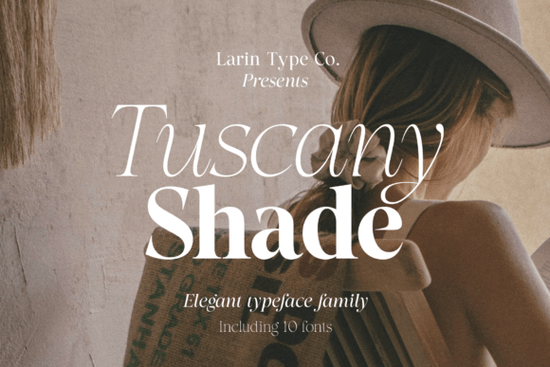
If you're on the lookout for a versatile and stylish font that can add a touch of elegance to your projects, Tuscany Shade Font is definitely worth considering. This serif font family offers a range of weights and styles, making it perfect for a variety of creative uses.
Why Choose Tuscany Shade Font?
Tuscany Shade is an elegant and contrast serif font that brings a modern and sophisticated feel to any design. It includes both regular and true Italic styles, each available in five different weights from extra light to bold. This versatility makes it an excellent choice for designers, crafters, and small businesses looking to create a polished and professional look.
Perfect for Fashion Projects
One of the standout features of Tuscany Shade is its suitability for fashion-related projects. Whether you're designing a logo, creating banners, or working on advertising materials, this font's clean lines and high contrast make it easy to read and visually appealing. Its classic yet modern aesthetic can help your designs stand out in a crowded market.
Versatile and Multi-Purpose
Beyond fashion, Tuscany Shade is a multi-purpose font that can be used in a wide range of applications. From packaging and book covers to magazines, headings, and descriptions, this font is flexible enough to fit into various design contexts. Its readability and stylish appearance make it a go-to choice for many creative professionals.
How to Use Tuscany Shade Font Effectively
To get the most out of Tuscany Shade, consider the following tips:
- Combine Weights and Styles: Experiment with different weights and styles (regular and Italic) to add depth and hierarchy to your designs.
- Use for Headings and Titles: The high contrast and elegant design of Tuscany Shade make it ideal for headings and titles, where you want to grab attention and set a professional tone.
- Pair with Complementary Fonts: For a more dynamic look, pair Tuscany Shade with complementary fonts. For example, you might use a sans-serif like Kaviera Font for body text to balance the elegance of Tuscany Shade.
Real-World Applications
Here are some real-world examples of how Tuscany Shade can be used effectively:
- Branding and Logos: Use Tuscany Shade to create a memorable and elegant logo for a fashion brand or a luxury product.
- Printed Materials: Incorporate Tuscancy Shade into business cards, brochures, and other printed materials to give them a refined and professional look.
- Web Design: Add Tuscany Shade to your website's headings and key sections to enhance the overall aesthetic and readability.
Final Tips for Using Tuscany Shade Font
Before you start using Tuscany Shade in your projects, here are a few final tips to keep in mind:
- Test Readability: Ensure that the font is readable at different sizes, especially if you plan to use it for long-form content.
- Consider Context: Think about the context and the message you want to convey. Tuscany Shade works well for elegant and formal designs, but it may not be suitable for casual or playful projects.
- Experiment and Iterate: Don’t be afraid to experiment with different combinations and layouts. Sometimes, the best results come from trying out new ideas and seeing what works best for your specific project.